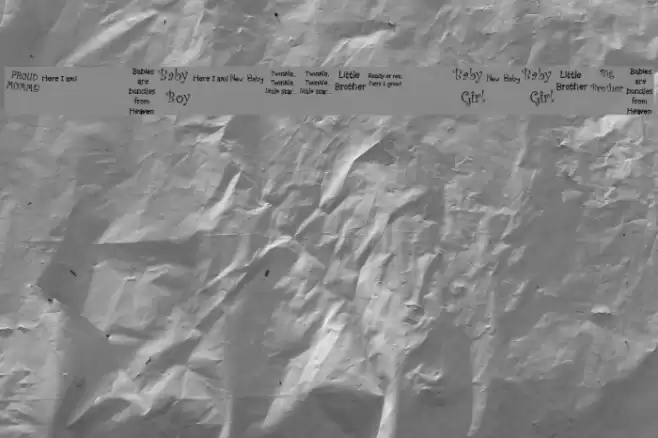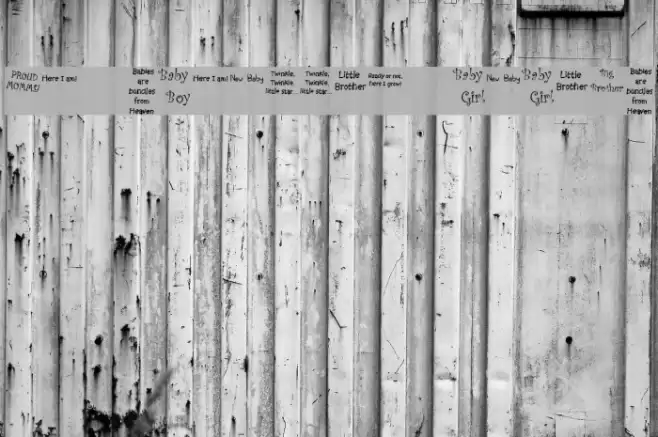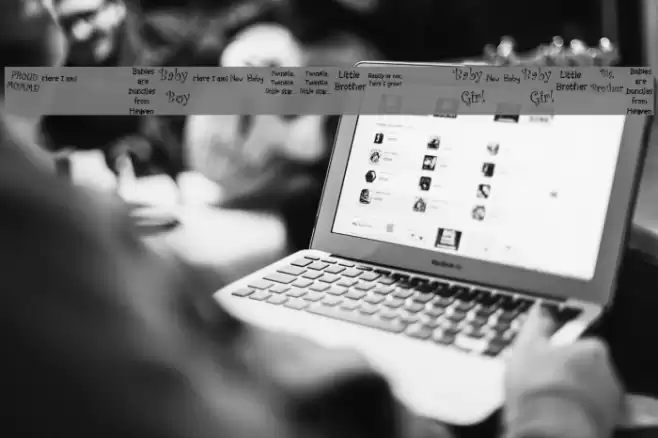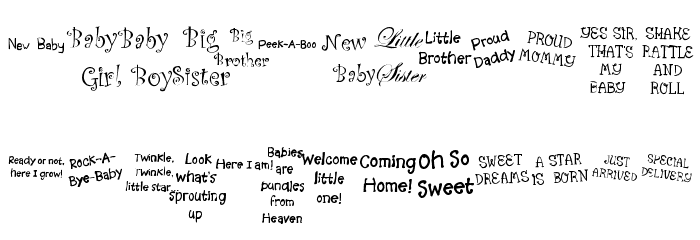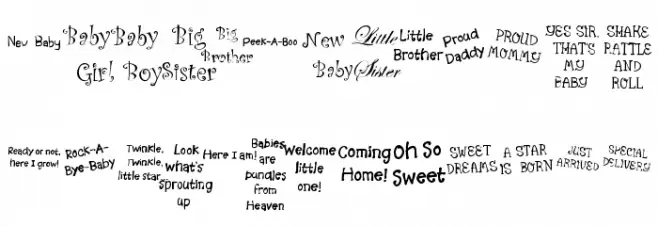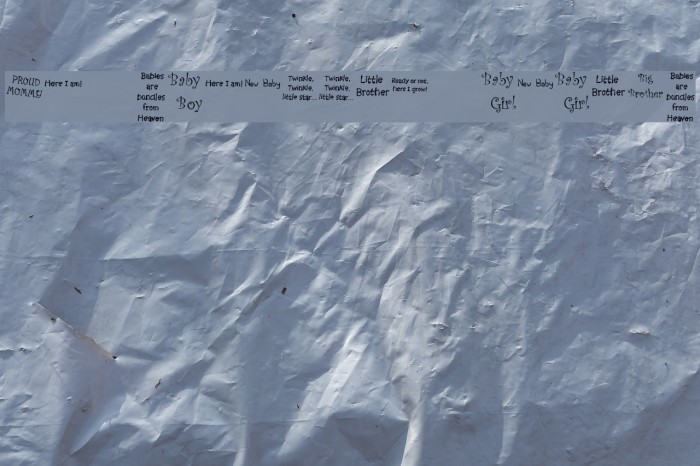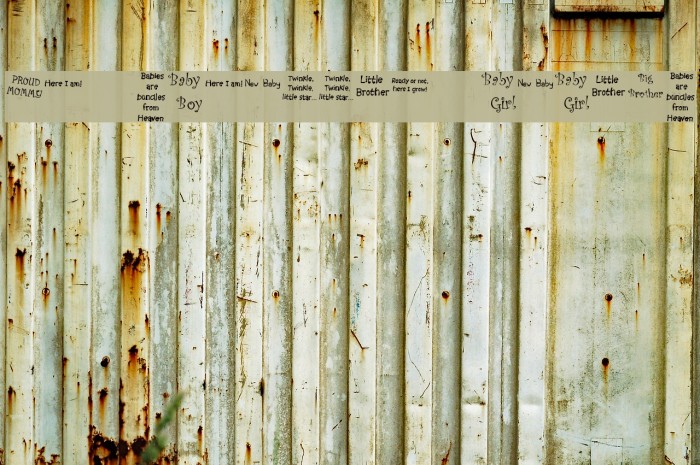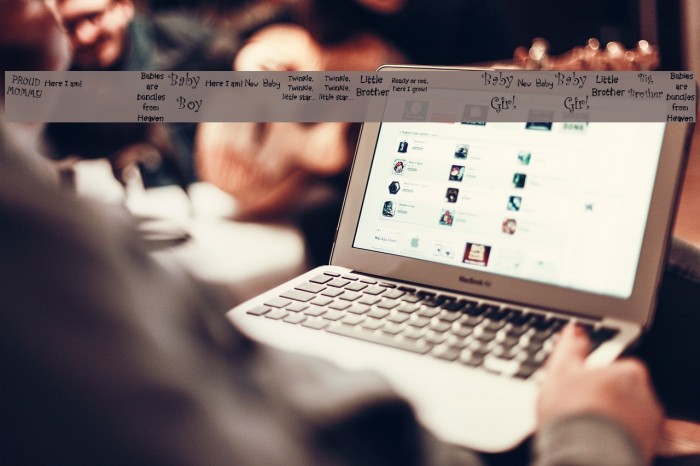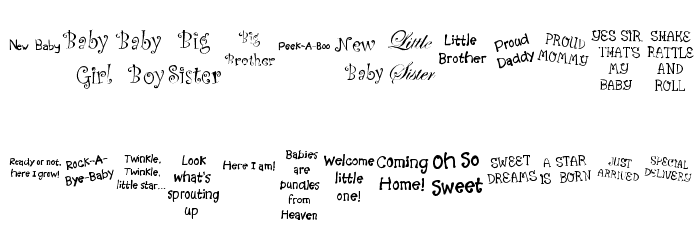
KR Scrappin Babies Font
KR Scrappin Babies Description
This playful and whimsical font features a variety of charming and quirky letterforms, each with its own unique flair. The characters exhibit a mix of curly and straight lines, giving them a lively and animated appearance. Some letters are adorned with small decorative elements, adding to the font's overall playful nature. The font conveys a sense of fun and creativity, making it ideal for projects that aim to capture a youthful or lighthearted spirit. The varying sizes and orientations of the letters contribute to its dynamic and engaging style, perfect for drawing attention and adding a touch of whimsy to any design.
A playful and whimsical font with quirky, decorative letterforms from Uncategorized fonts.
- Proposed Projects: Ideal for children's books, playful invitations, greeting cards, and creative branding projects.
- Overall Style: Playful
- Use Case: Headlines, Logos, Invitations